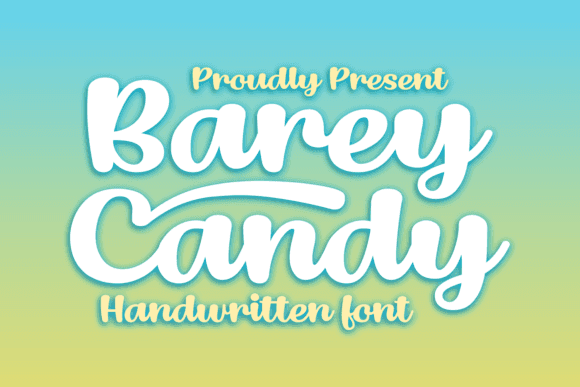
Barey Candy Font for Crafting, Logos and Print Projects
Barey Candy is a hand-lettered script font built for creatives who work across logo design, printable crafts, and handmade product branding. It delivers a balance of elegance and approachability, making it suitable for a wide range of design projects. With its fluid strokes and unique character, Barey Candy enhances visual storytelling, allowing brands to express their personality with ease. Designers can also find a variety of complementary styles, making it a versatile choice for any project. For those looking to experiment, a basic lettering free font download is available, providing an excellent starting point for creative exploration.
- Custom logos and brand kits
- Printable cards, invitations, and tags
- Vinyl decals for mugs, bags, and walls
- Product packaging and business labels
- Social media graphics and eBooks
- Ideal for feminine, sweet, or playful branding
- Flexible enough for print, web, and vinyl projects
- Clean curves for professional-grade results
- Craft-ready for cutting machines and printable use
| Styling | Smooth, rounded, script | Handwritten or brush style | Classic, serif-based |